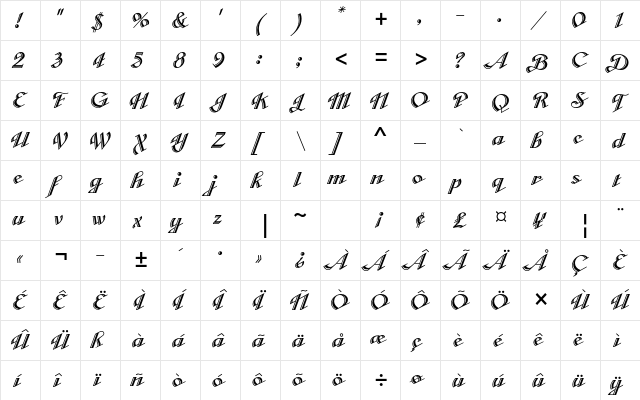
Cabarga Cursiva Std Regular
| Designer | Demetrio Cabarga and Leslie Cabarga |
Design Context for Cabarga Cursiva Std Typeface
Cabarga Cursiva Std flows with the natural rhythm of handwritten lettering, making it ideal for designs that call for warmth and personal expression.
Font Pairing: Combine Cabarga Cursiva Std with a simple geometric sans for maximum contrast — the tension between flowing curves and clean structure is a classic typographic pairing.
Pro Tip: Use Cabarga Cursiva Std for short runs of text — names, titles, or taglines. Extended body copy in script faces tires the eye quickly.